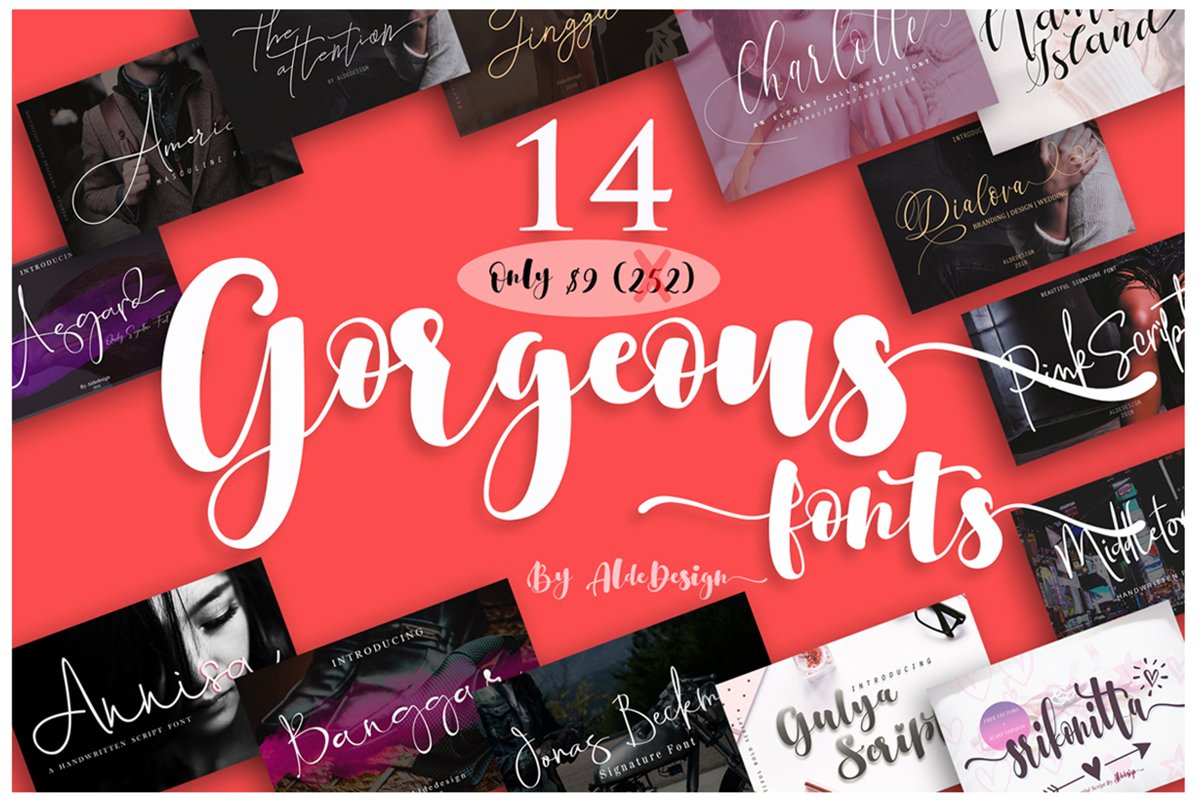
Gorgeous Bundle - 14 Fonts in 1 Pack
Cast your eyes on this collection of 14 gorgeous fonts created by Aldedesign! All of our font  Script is a beautiful handwritten font with stylistic alternates, swash, titling, and multilingual support. Make your design looks natural and elegant in a wide range of design concepts. This script font is can be used to give your projects a modern and casual flair.
If your projects are desperately in need of a fresh look, gorgeous, elegant, and flowing, these fonts are packed with oodles of OpenType features and are just the thing you're looking for.
1. Annisa Script - https://fontbundles.net/aldedesign/81344-annisa-script-font/rel=xVrr4Z
2. Asgard Signature - https://fontbundles.net/aldedesign/104419-asgard-signature-font/rel=xVrr4Z
3. Banggar Signature - https://fontbundles.net/aldedesign/108821-banggar-signature-font/rel=xVrr4Z
4. Beckman Demons - https://fontbundles.net/aldedesign/160814-beckman-demons/rel=xVrr4Z
5. Charlotte Calligraphy - https://fontbundles.net/aldedesign/88782-charlotte-calligraphy-font/rel=xVrr4Z
6. Dialova Script - https://fontbundles.net/aldedesign/141984-dialova-beautiful-calligraphy/rel=xVrr4Z
7. Ectomorph Script -
8. Gulya Script - https://fontbundles.net/aldedesign/156062-gulya-script/rel=xVrr4Z
9. Jean Jingga -
10. Jonas Beckman - https://fontbundles.net/aldedesign/101387-jonas-beckman-two-signature-font/rel=xVrr4Z
11. Nami Island -
12. Pink Script - https://fontbundles.net/aldedesign/116677-pink-script-beautiful-signature-font/rel=xVrr4Z
13. Srikonitta Script - https://fontbundles.net/aldedesign/101270-srikonitta-script-free-vectors/rel=xVrr4Z
14. The Attention - https://fontbundles.net/aldedesign/160812-the-attention/rel=xVrr4Z